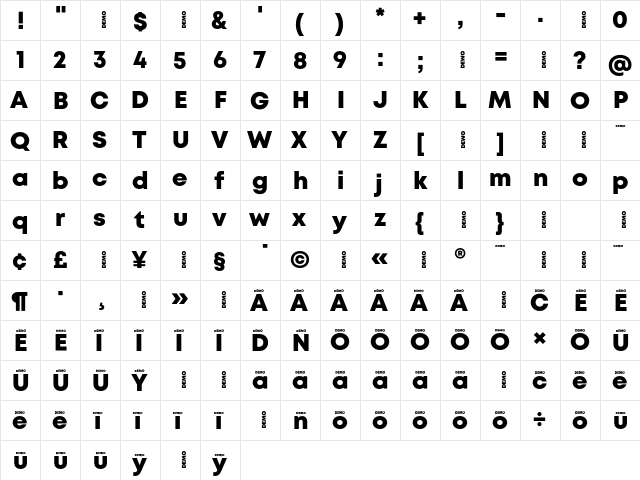
Mont Heavy DEMO
| Foundry | Svetoslav Simov |
| Designer | Svetoslav Simov, Mirela Belova |
Design Context for Mont Typeface
Mont is a composed and adaptable typeface that performs quietly and consistently across a wide range of design contexts.
Pro Tip: Pair Mont with a font of contrasting weight or personality to build a more expressive typographic hierarchy.